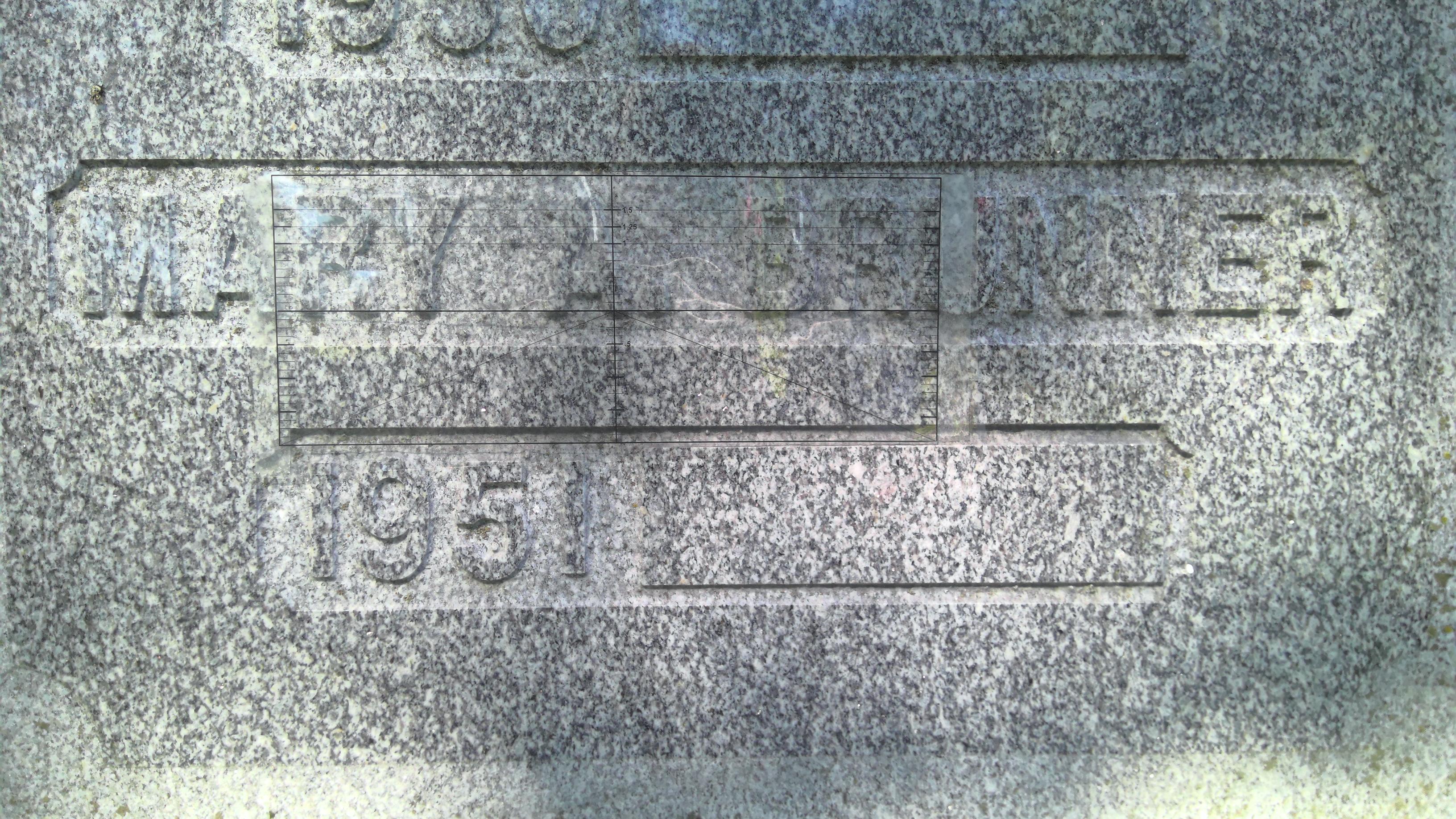
Hi Brian, not sure exactly what this is, but it looks like it may have either been done by hand, or perhaps it is a digital font like Helvetica that has been modified to match older lettering. If I take my version of Helvetica Neue Bold, manually condense it, move the crossbar down on the ‘A’s, and remove the strokes on the ‘1’ I get something very close.